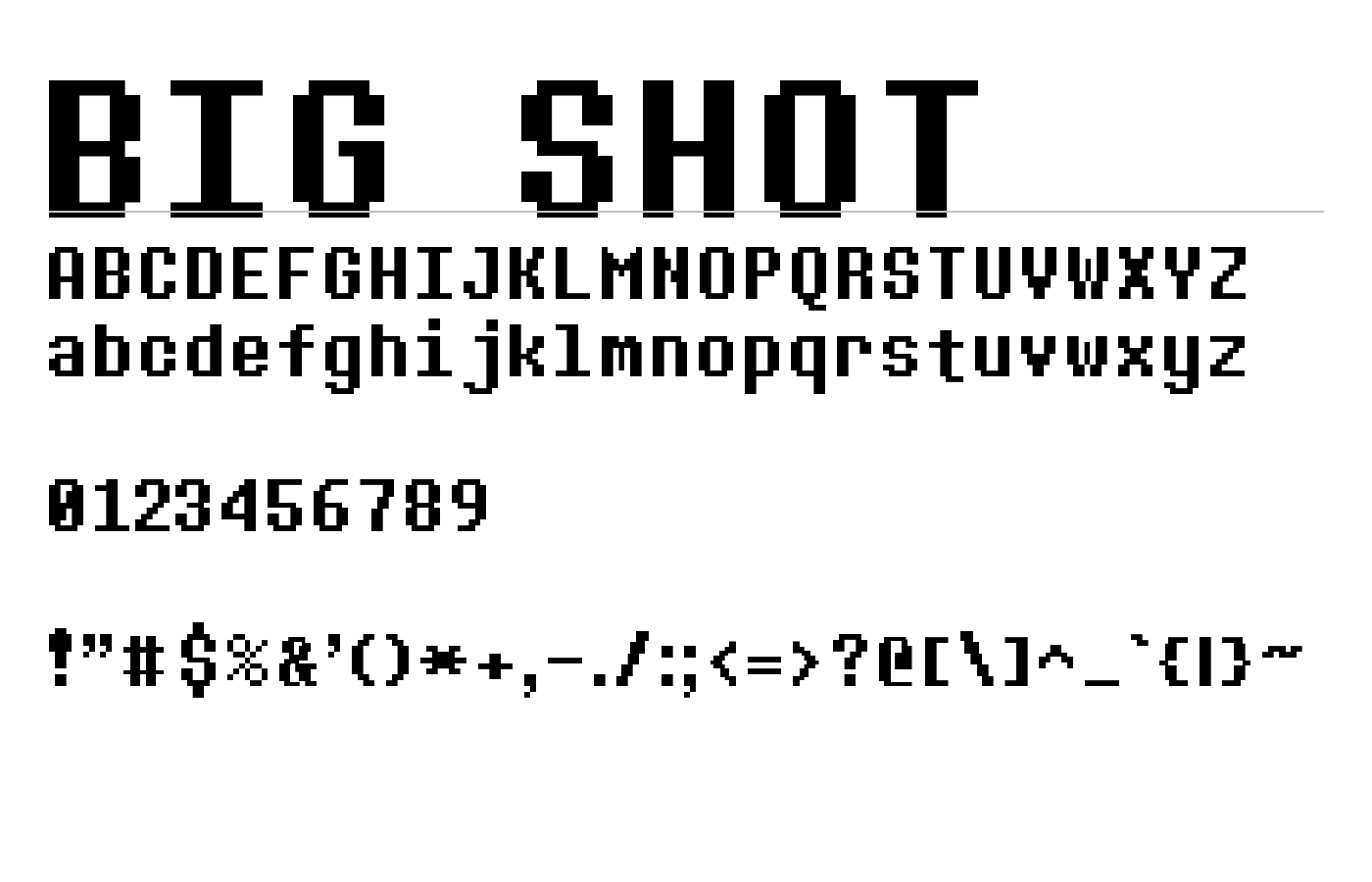
BIG SHOT is a bold, pixel-inspired sans serif font with a strong, blocky appearance that evokes a retro digital or gaming feel. Its uniform stroke weight, squared edges, and condensed letterforms create a modern yet nostalgic style, making it ideal for tech-themed projects, video game graphics, or any design seeking a vintage digital vibe. This font stands out in headlines, logos, and packaging where a distinctive, attention-grabbing aesthetic is desired.
BIG SHOT Font
About BIG SHOT Font